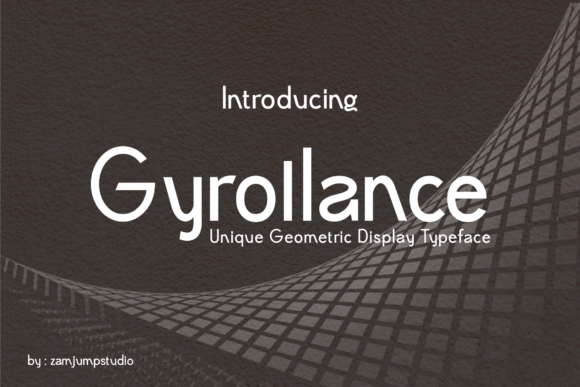
Gyrollance Font: Redefining Conventional Typographic Design
In the world of typography, fonts play a crucial role in conveying messages, expressing emotions, and creating visual identities. With the ever-evolving design landscape, the demand for unique and unconventional typefaces has increased. This is where Gyrollance Font comes into play, redefining conventional typographic design with its distinctive and bold character shapes.
What Sets Gyrollance Font Apart?
Gyrollance Font is not your traditional geometric typeface. It boasts unique letterforms that add a bold and memorable touch to any design project. Unlike traditional fonts, Gyrollance Font’s distinctive character shapes make it stand out from the crowd. Its unconventional design makes it perfect for designers looking to add a creative twist to their work.
Optimal Design Applications
Gyrollance Font is specifically crafted for optimal design applications. Its bold and striking visual appeal makes it perfect for:
- Headlines: Add a bold and attention-grabbing touch to your headlines with Gyrollance Font.
- Covers: Create eye-catching covers for books, magazines, or any other publication.
- Branding: Establish a strong brand identity with Gyrollance Font’s unique and memorable character shapes.
- Promotional Materials: Elevate your promotional materials, such as posters, flyers, or brochures, with Gyrollance Font’s striking visual appeal.
Multilingual Support
Gyrollance Font offers multilingual support, making it a versatile choice for designers working on international projects. With its extensive character set, you can create designs that cater to diverse languages and cultures.
Uniquely Designed Ligatures
Gyrollance Font takes typography to the next level with its uniquely designed ligatures. Ligatures are special character combinations that create a visually appealing effect. With Gyrollance Font, you can add a creative touch to your designs and make them more engaging.
Creative Freedom
Gyrollance Font offers creative freedom to designers. Its unique character shapes and ligatures allow you to experiment with different design styles and create something truly original. Whether you’re aiming for a modern, edgy, or sophisticated look, Gyrollance Font has got you covered.
Elevate Your Design Projects
Gyrollance Font is designed to elevate your design projects with its striking visual appeal. Its bold and memorable character shapes make it perfect for designers looking to create a lasting impression. With Gyrollance Font, you can:
- Create visually stunning designs that grab attention.
- Establish a strong brand identity.
- Add a creative twist to your designs.
- Experiment with different design styles.
Tips for Using Gyrollance Font
To get the most out of Gyrollance Font, here are some tips:
- Use Gyrollance Font for headlines and titles to add a bold and attention-grabbing touch.
- Experiment with different font sizes and colors to create visual interest.
- Pair Gyrollance Font with other fonts to create a unique and creative design.
- Use Gyrollance Font’s ligatures to add a creative touch to your designs.
Gyrollance Font is a game-changer in the world of typography. Its distinctive and unconventional character shapes make it perfect for designers looking to add a bold and memorable touch to their designs. With its multilingual support, uniquely designed ligatures, and creative freedom, Gyrollance Font is the perfect choice for designers looking to elevate their design projects.
What is Gyrollance Font?
Gyrollance Font is a unique and unconventional typeface that redefines conventional typographic design with its distinctive and bold character shapes.
What is Gyrollance Font used for?
Gyrollance Font is perfect for headlines, covers, branding, promotional materials, and more.
Does Gyrollance Font support multiple languages?
Yes, Gyrollance Font offers multilingual support, making it a versatile choice for designers working on international projects.